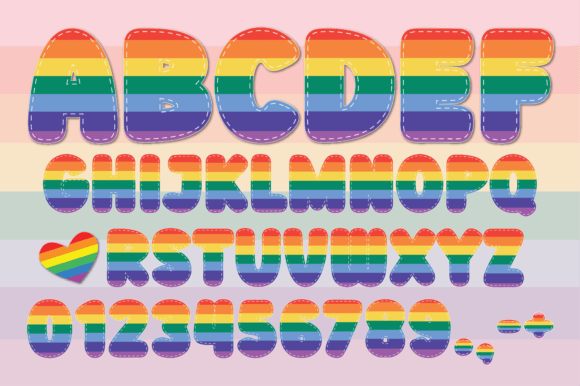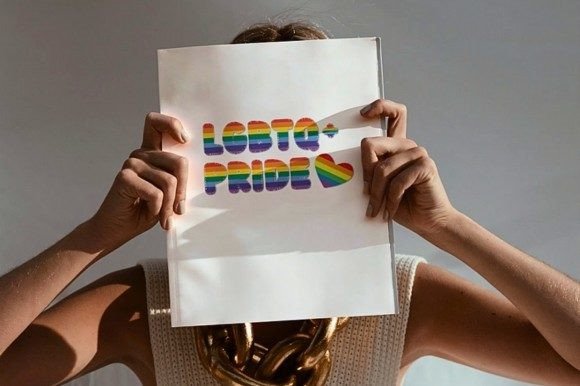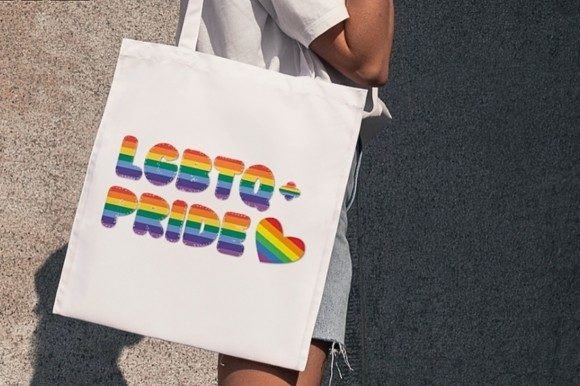
Introduction to Pride Lgbtq+ Font
The β€œPride LGBTQ+” font is like a magical rainbow that dances on paper.
It’s as if someone took all the vibrant colors of the LGBTQ+ flag and transformed them into letters and symbols Each character is like a little celebration, with bold strokes and curves filled with joy.
Key Features of Pride Lgbtq+ Font